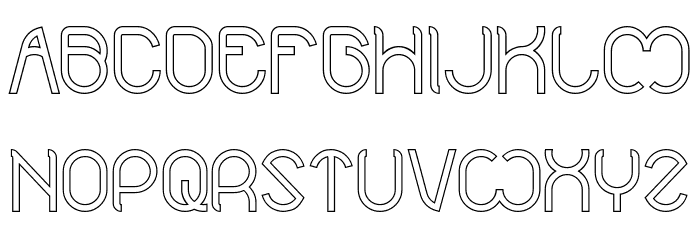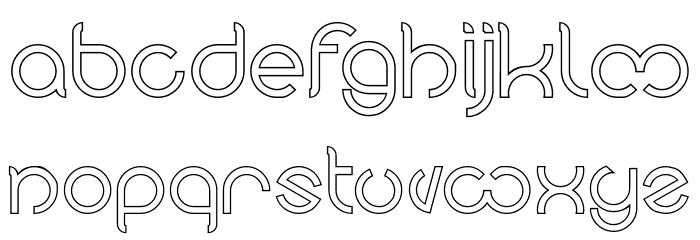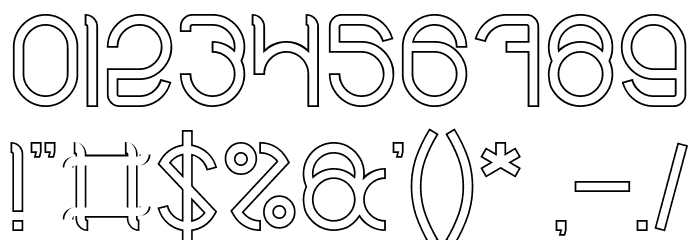
Nicole-Hollow Font
This font features a unique hollow design with a modern and futuristic aesthetic. Each character is outlined, creating a sense of openness and lightness. The uppercase and lowercase letters maintain a consistent geometric style, with rounded edges and smooth curves. The numbers and special characters follow the same design principles, ensuring uniformity across all glyphs. This font's distinct hollow appearance makes it stand out, offering a creative twist on traditional typography.
A modern, hollow, geometric font with a futuristic feel.
- Font: Nicole-Hollow
- Proposed Projects: Ideal for branding, posters, digital art, and futuristic-themed designs.